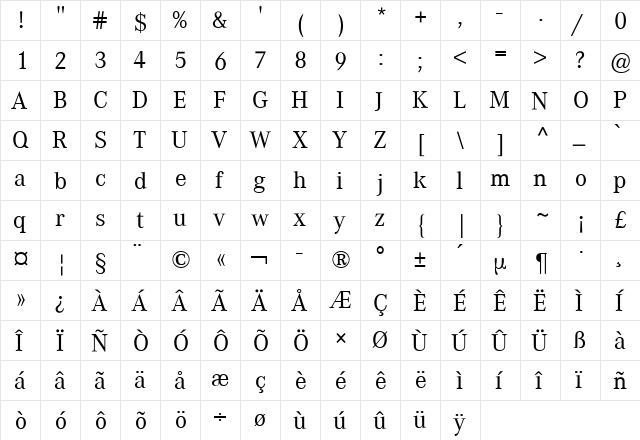
Corporate A BQ Regular Font Preview
Corporate A BQ Regular
Design Context for Corporate A BQ Typeface
Corporate A BQ is a composed and adaptable typeface that performs quietly and consistently across a wide range of design contexts.
Pro Tip: Pair Corporate A BQ with a font of contrasting weight or personality to build a more expressive typographic hierarchy.